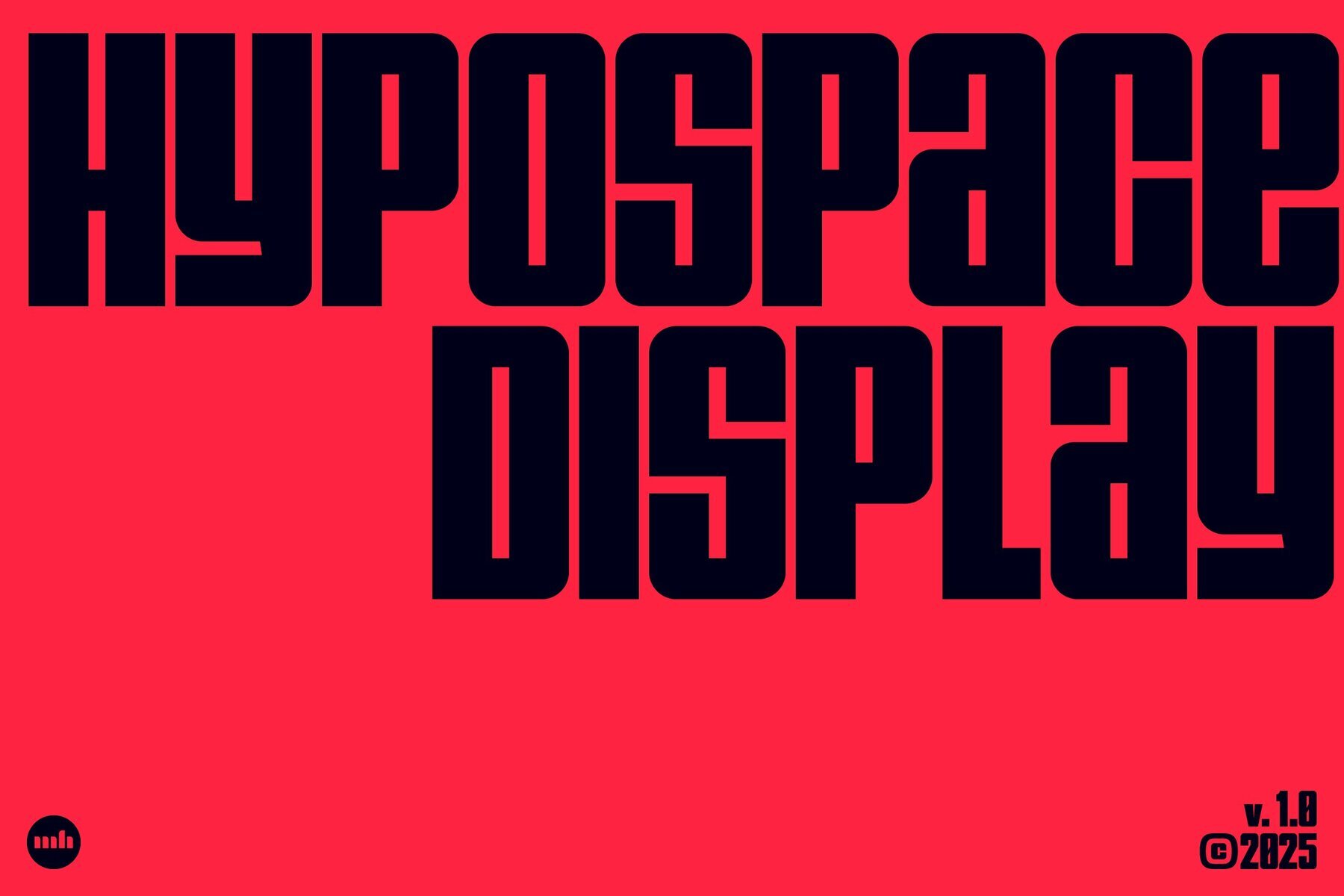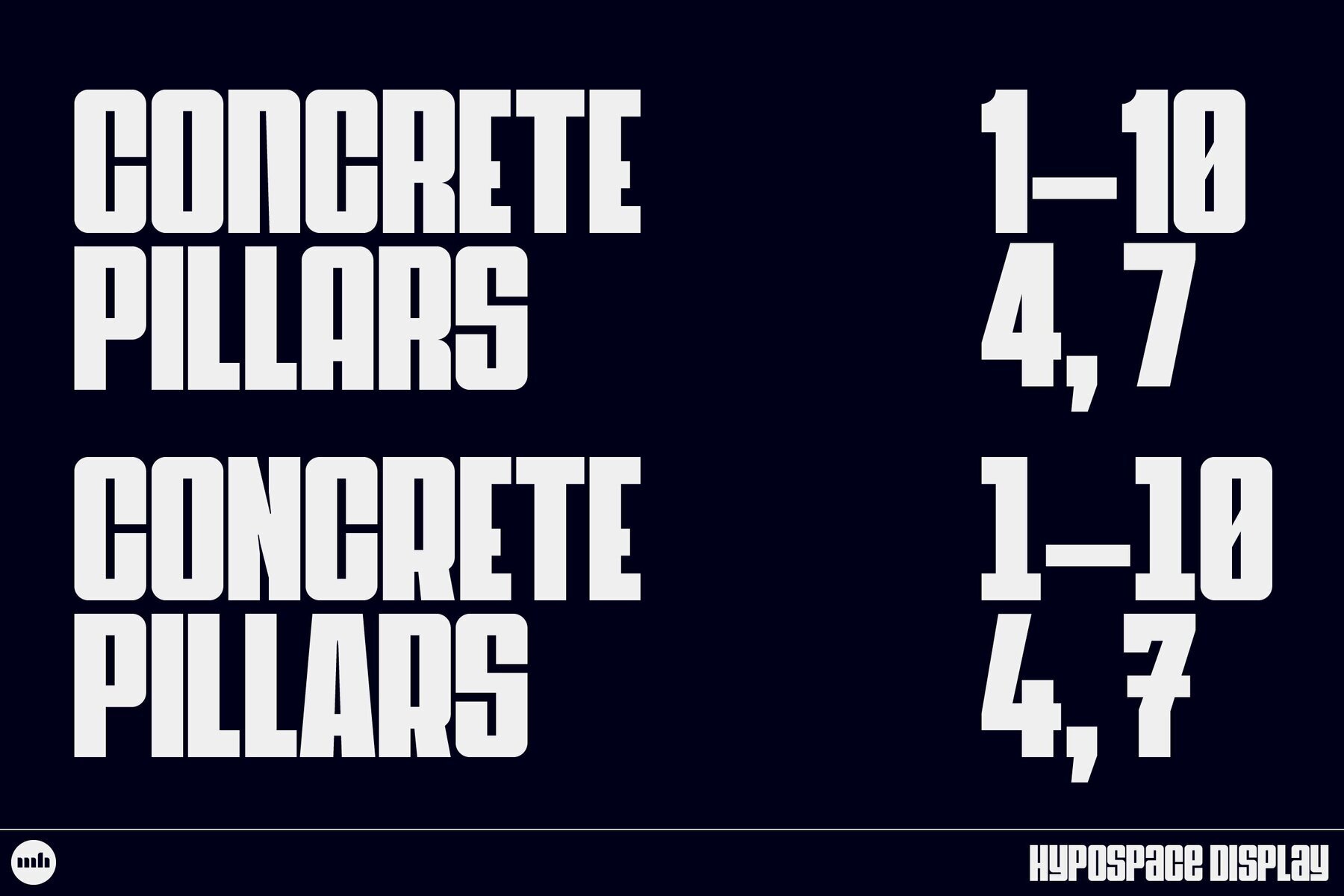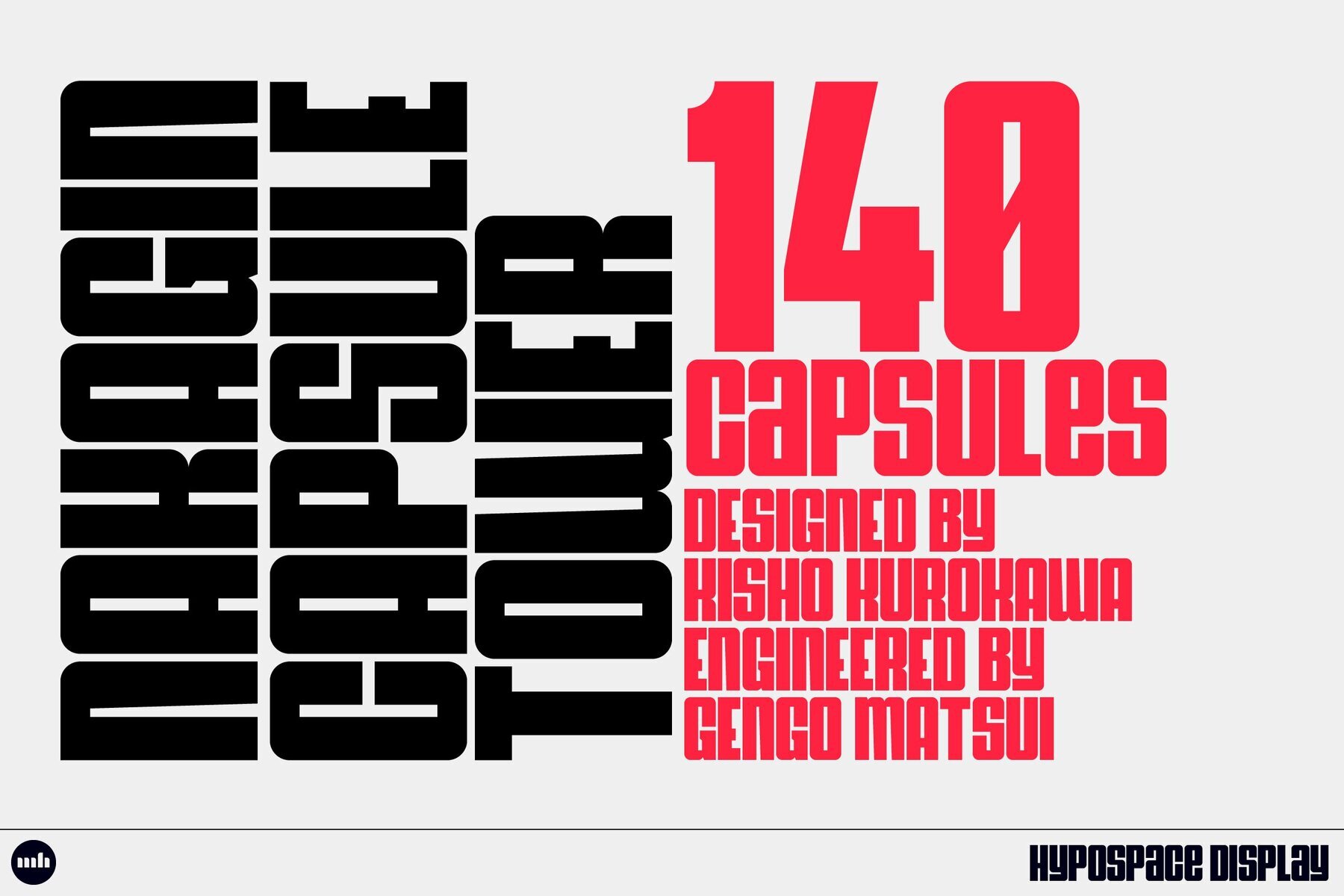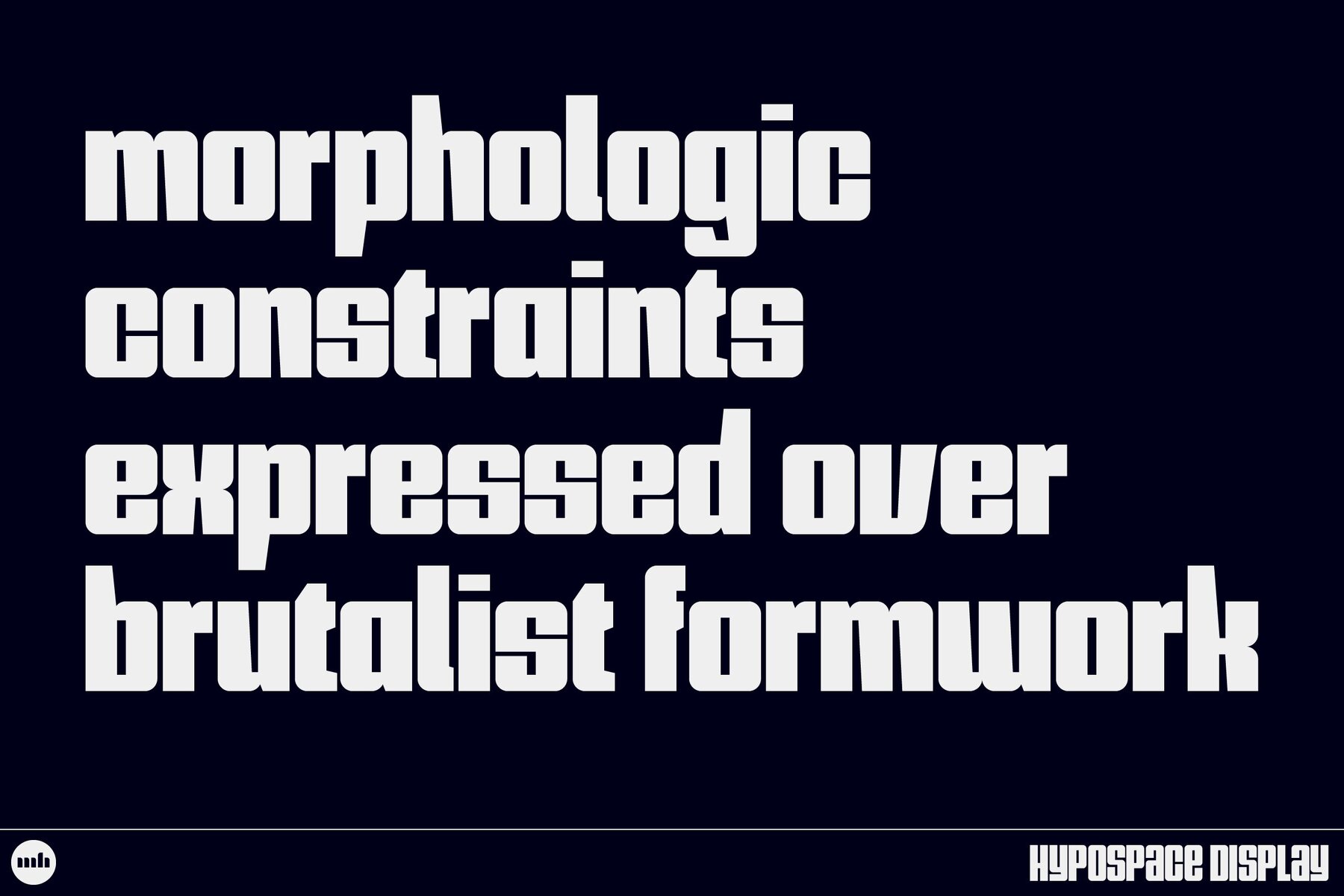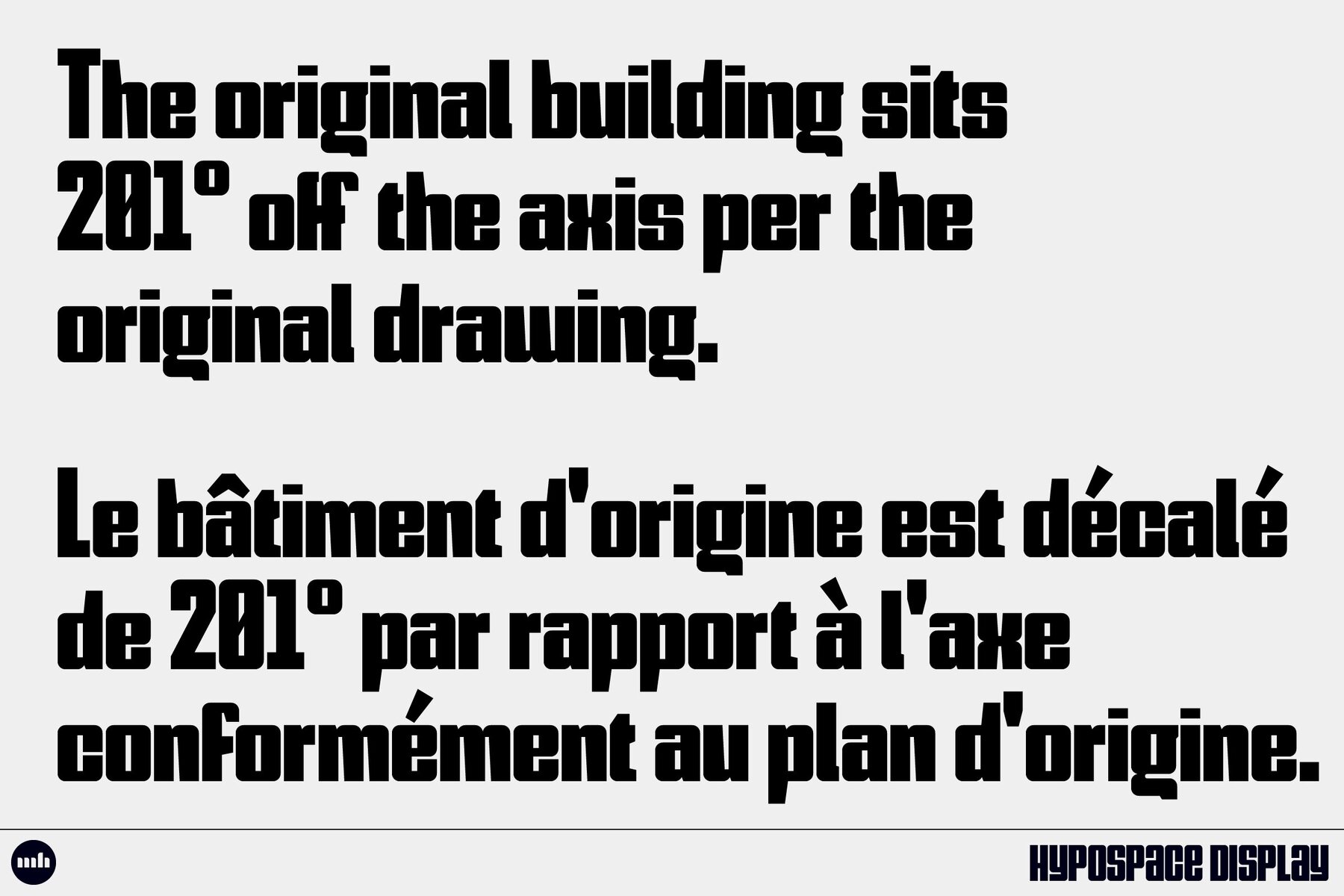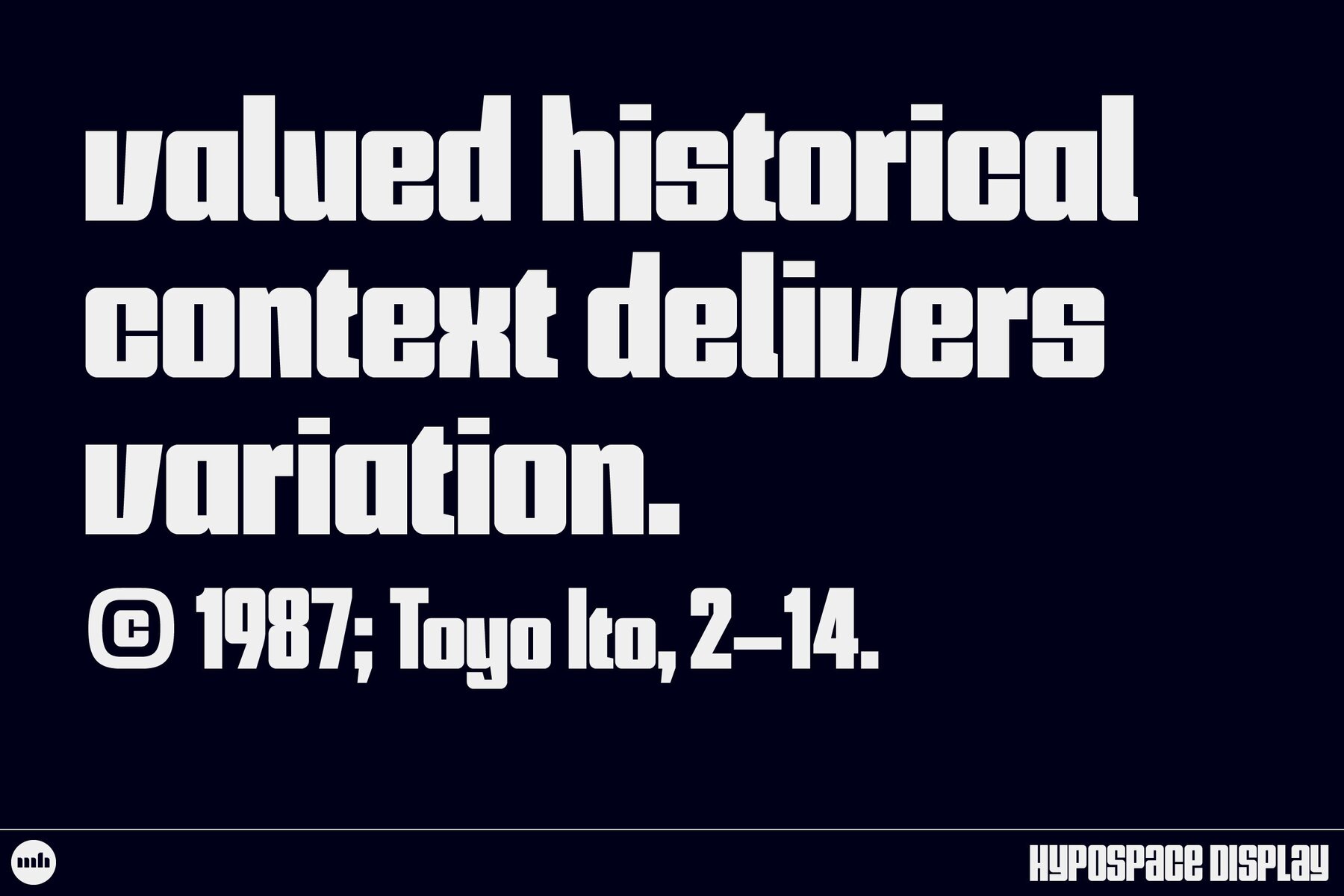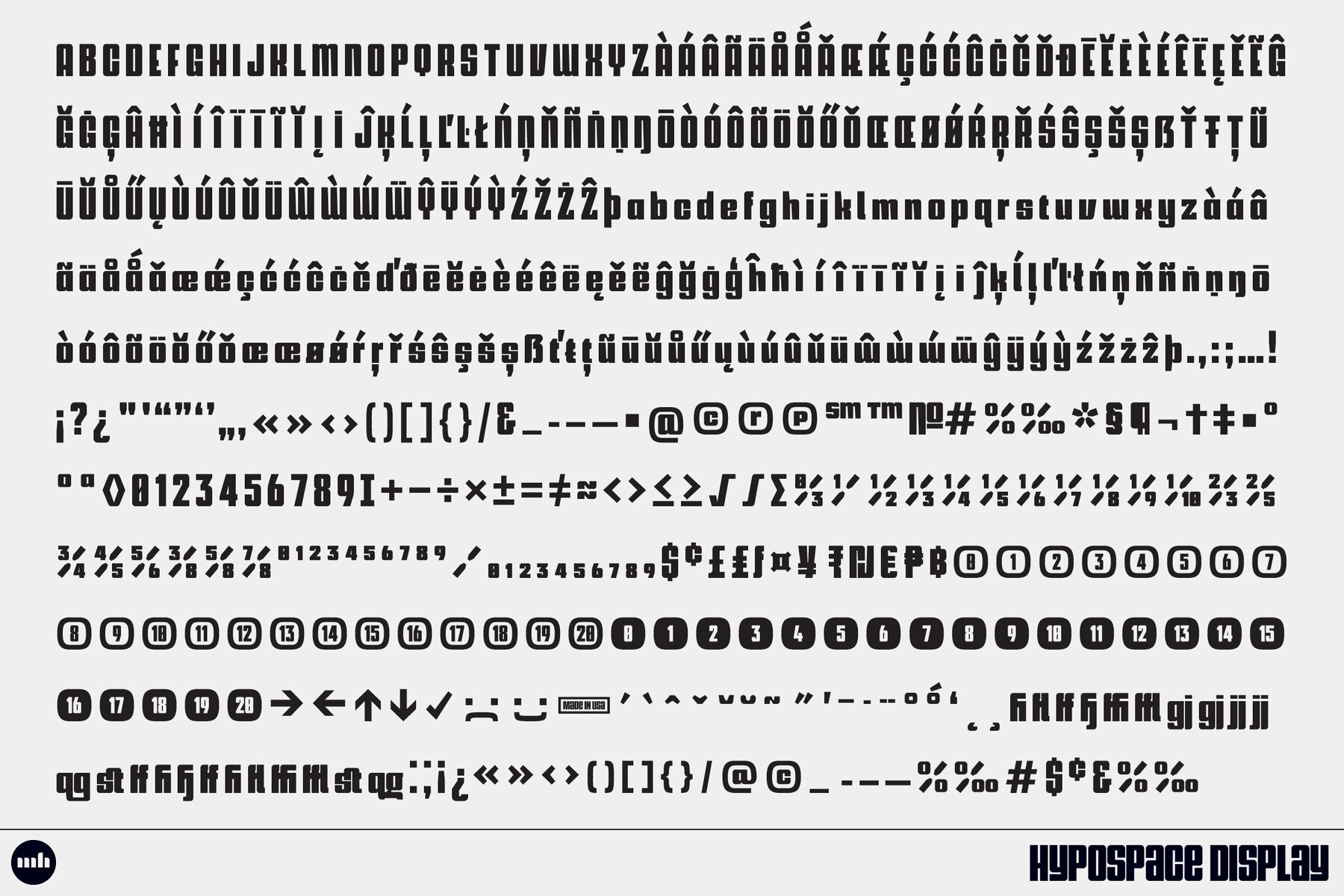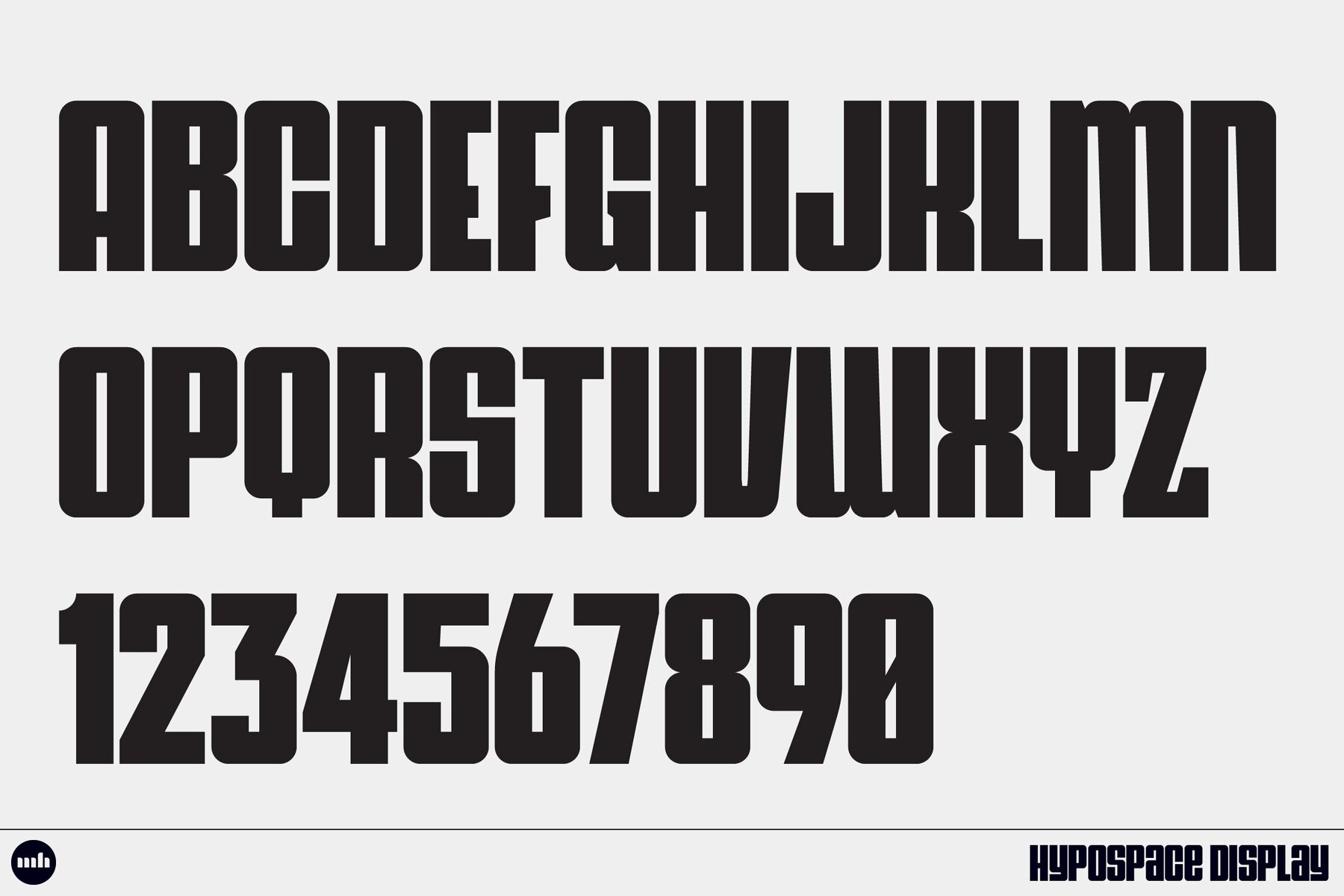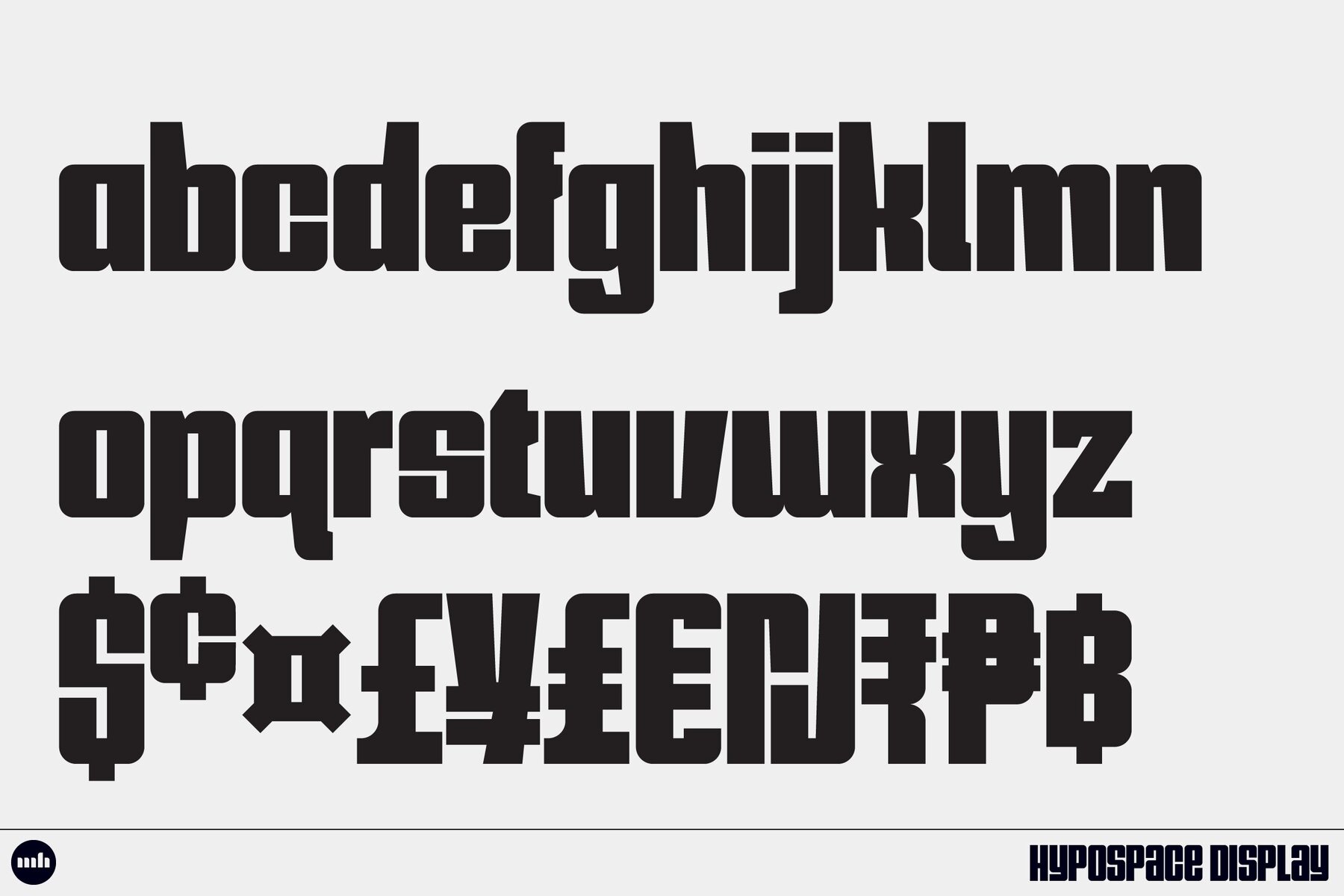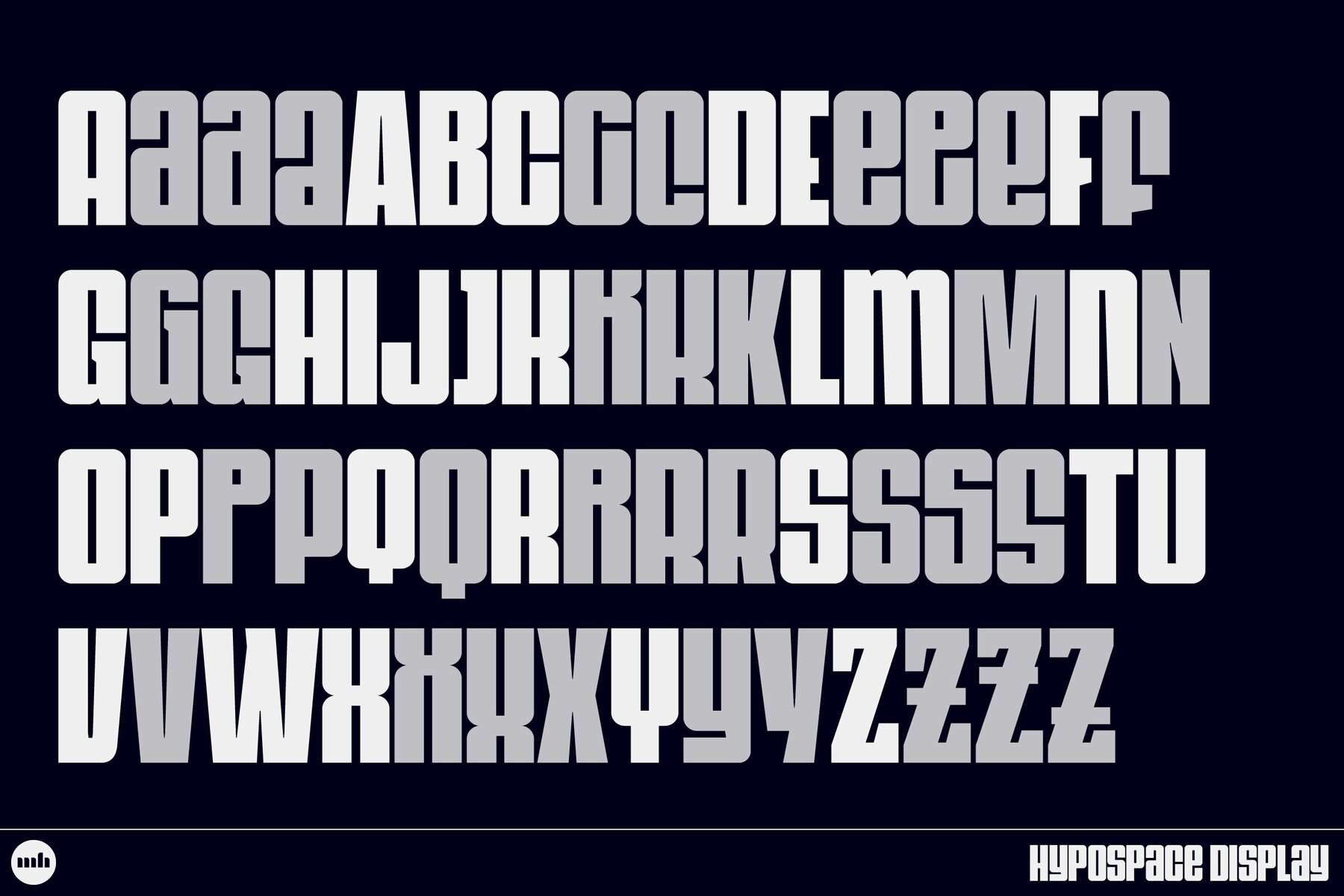
Hypospace Display Font
Hypospace Display Black
Hypospace Display captures attention with its modular grotesque style, making it an excellent choice for impactful titling. Supporting 256 Latin-script languages, this typeface offers broad linguistic versatility. Multiple stylistic sets ensure it can meet diverse design needs. Taking cues from Japanese architecture's tatami—a spatial unit—the uppercase characters are crafted in a precise 1:2 ratio. This design choice, coupled with predominantly mono-width letterforms, results in a rhythmic typeface. Its small counters and tight kerning amplify cohesion across your typography projects. Inspired by Wim Crouwel's Hiroshima poster, Hypospace Display is an evolution of a limited-character typeface originally crafted for "The Hypospace of Japanese Architecture." This two-volume book examines architecture in post-atomic Japan, and the typeface maintains its historical and aesthetic resonance.Hypospace Display: Modular Grotesque Typeface for Bold Titles